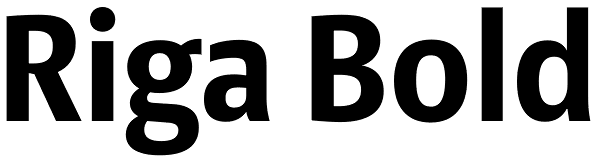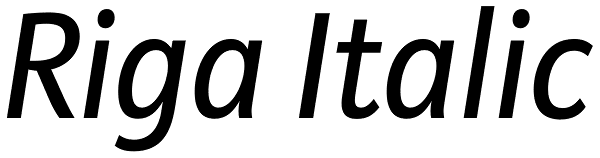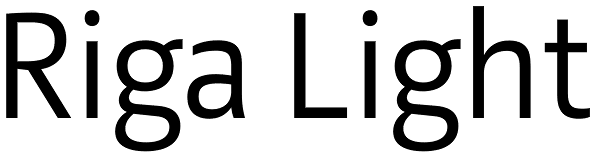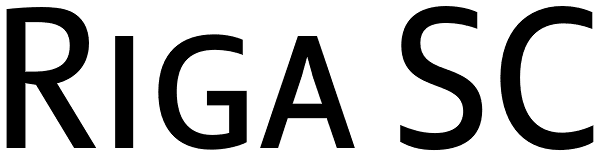
Riga
Riga is a space-saving and legible typeface designed to work equally well on paper and on the computer screen. Its personality is clear and practical, yet warm and polite. Riga is suitable for a wide range of typography such as editorial, websites...